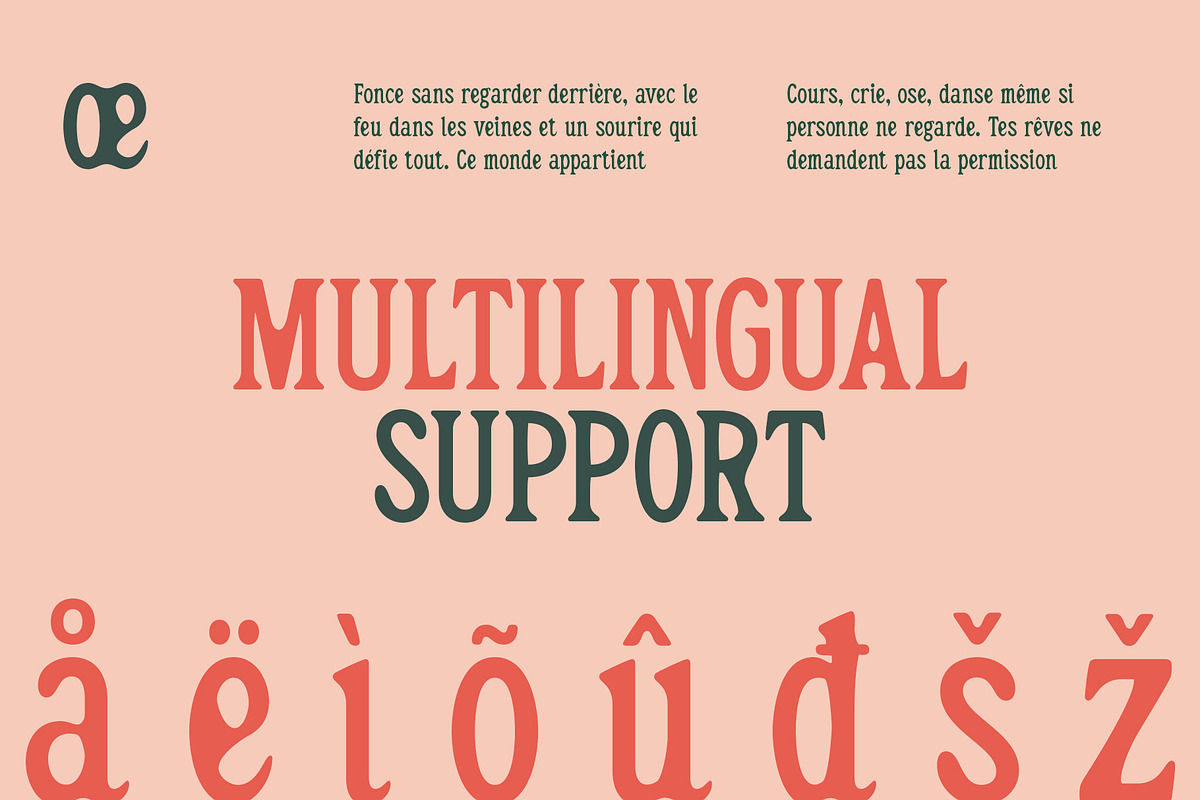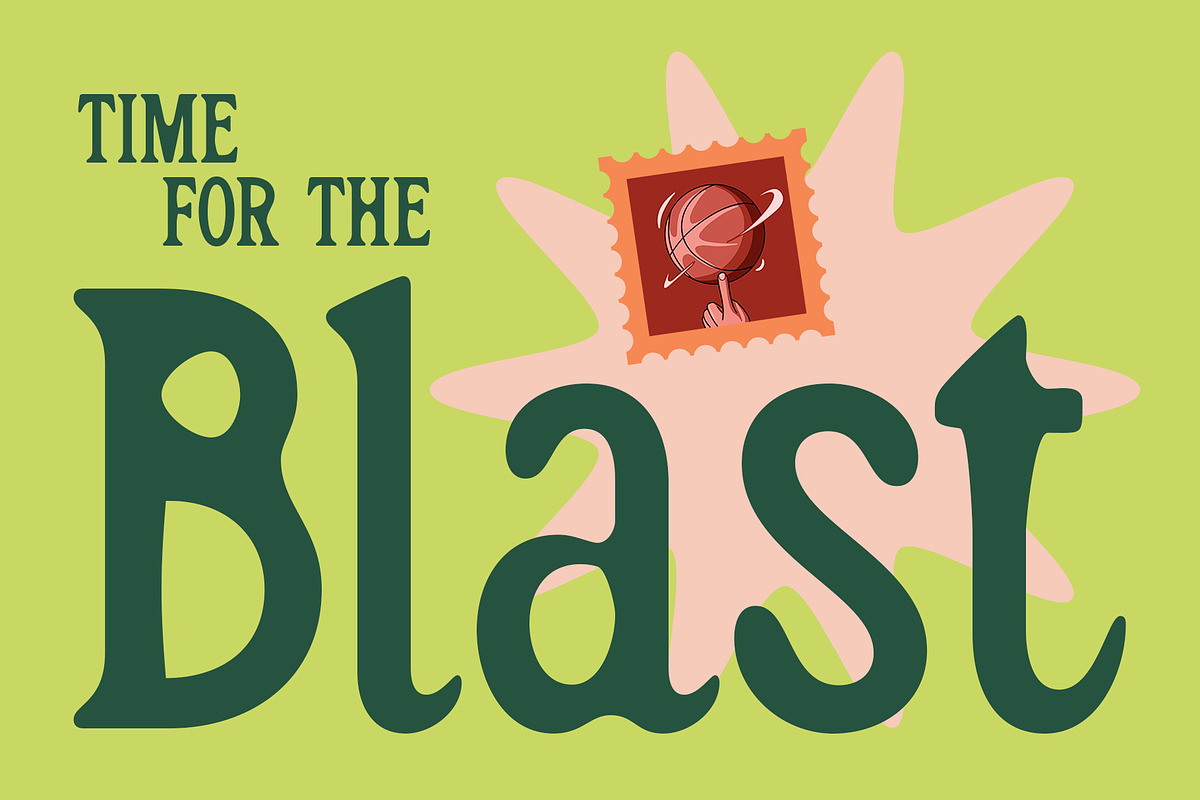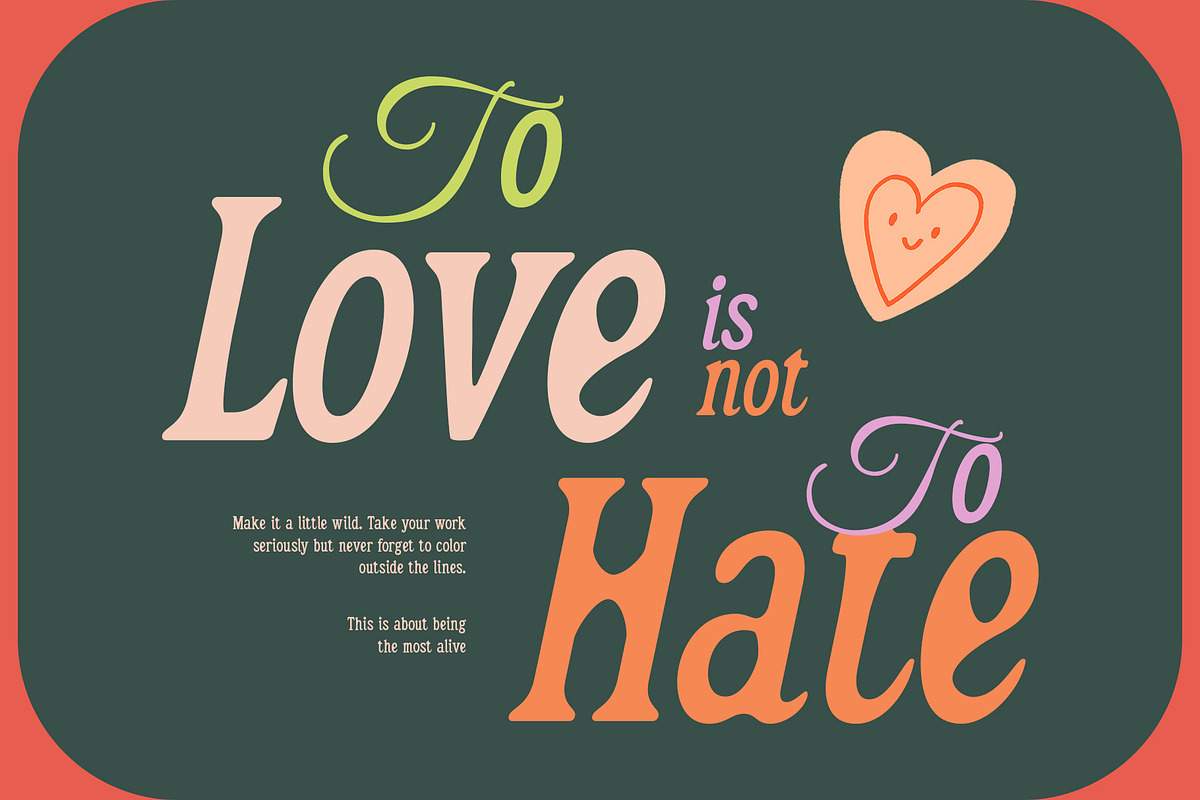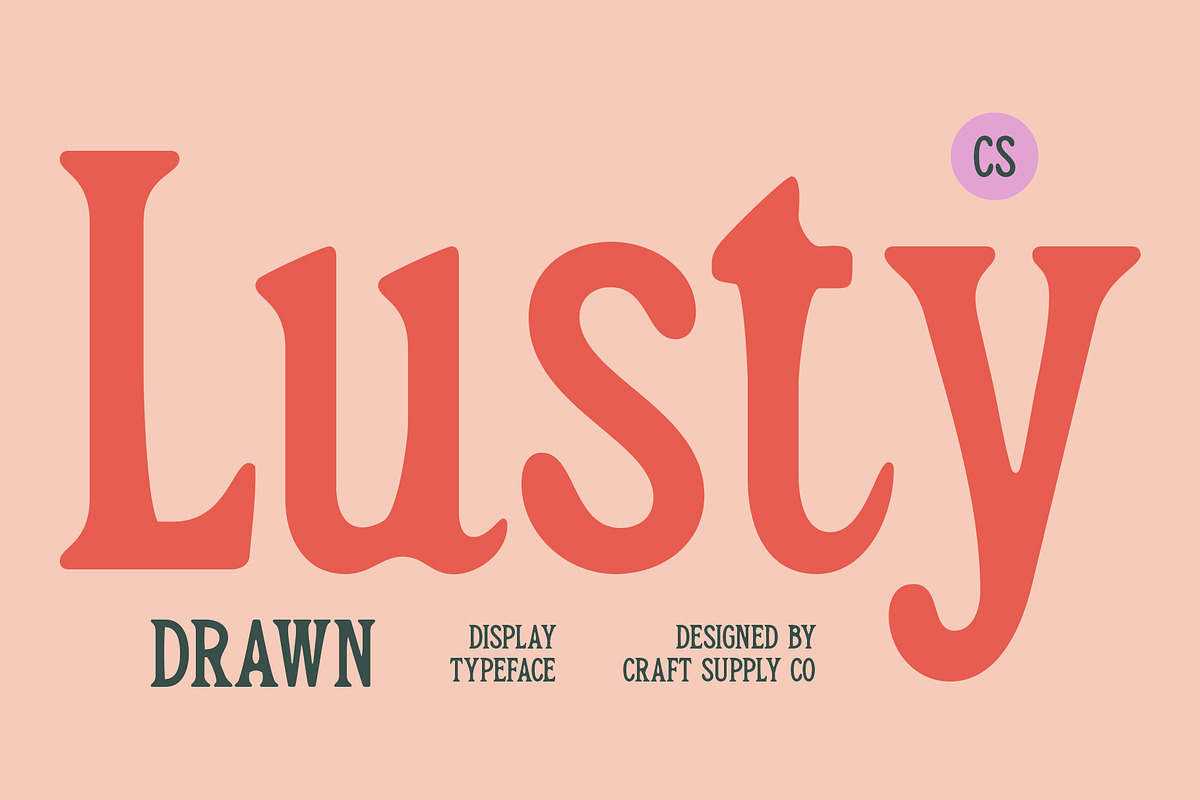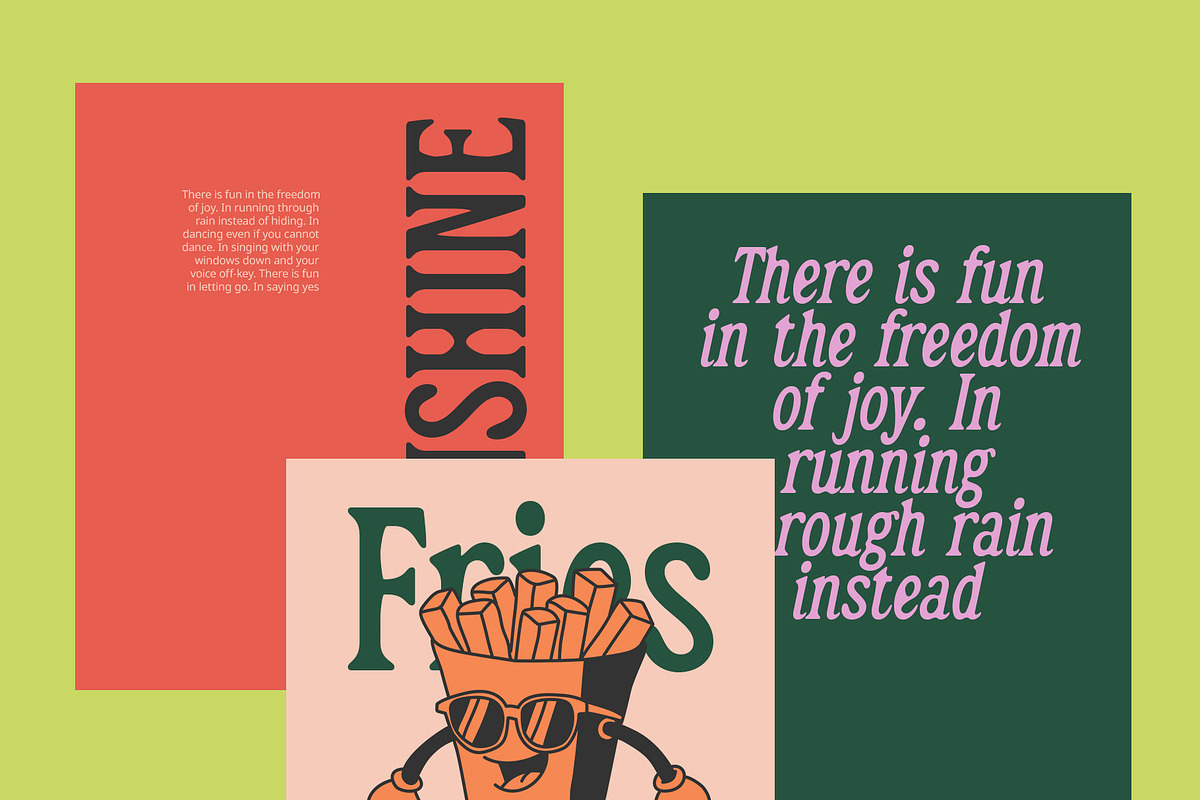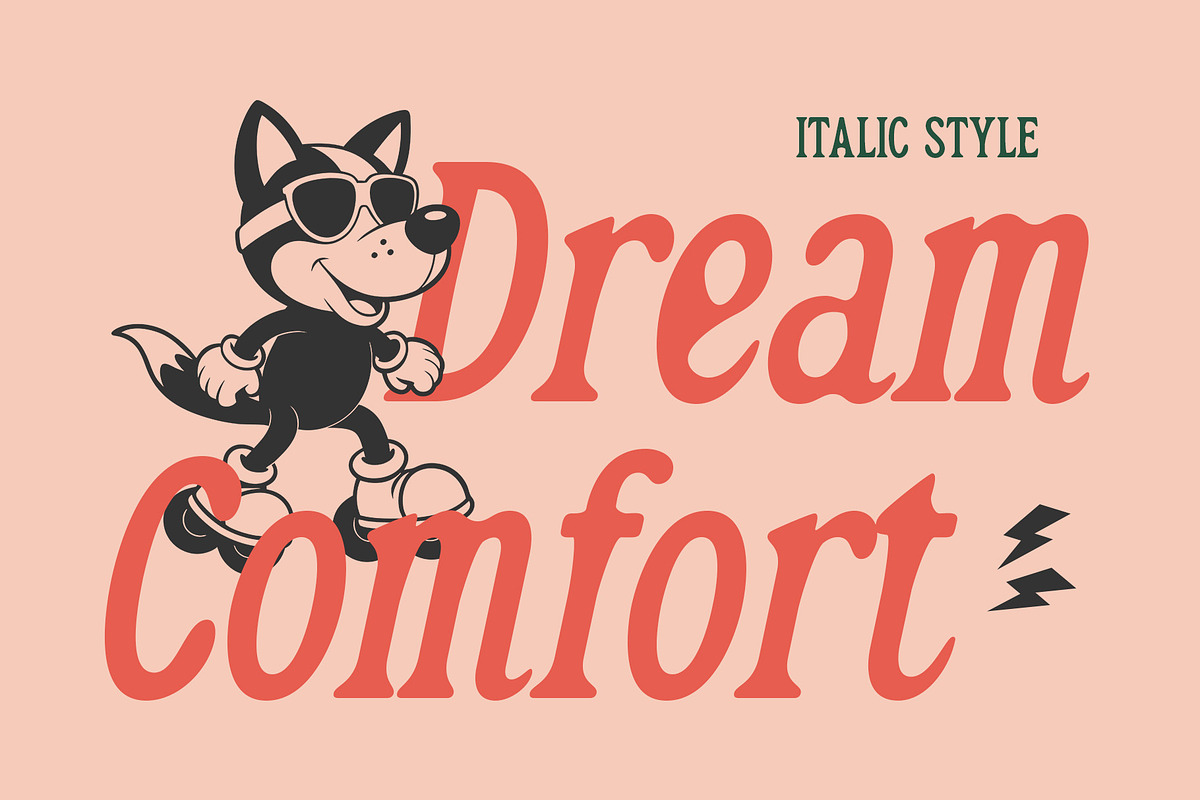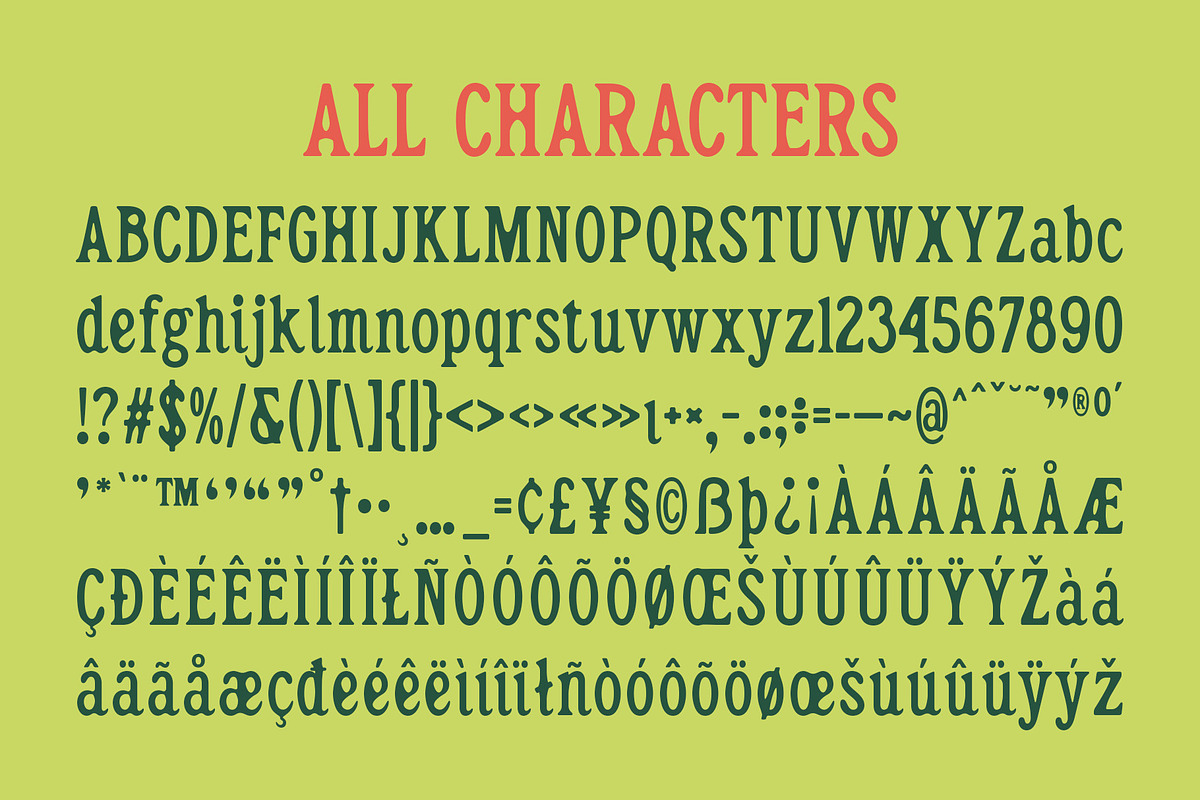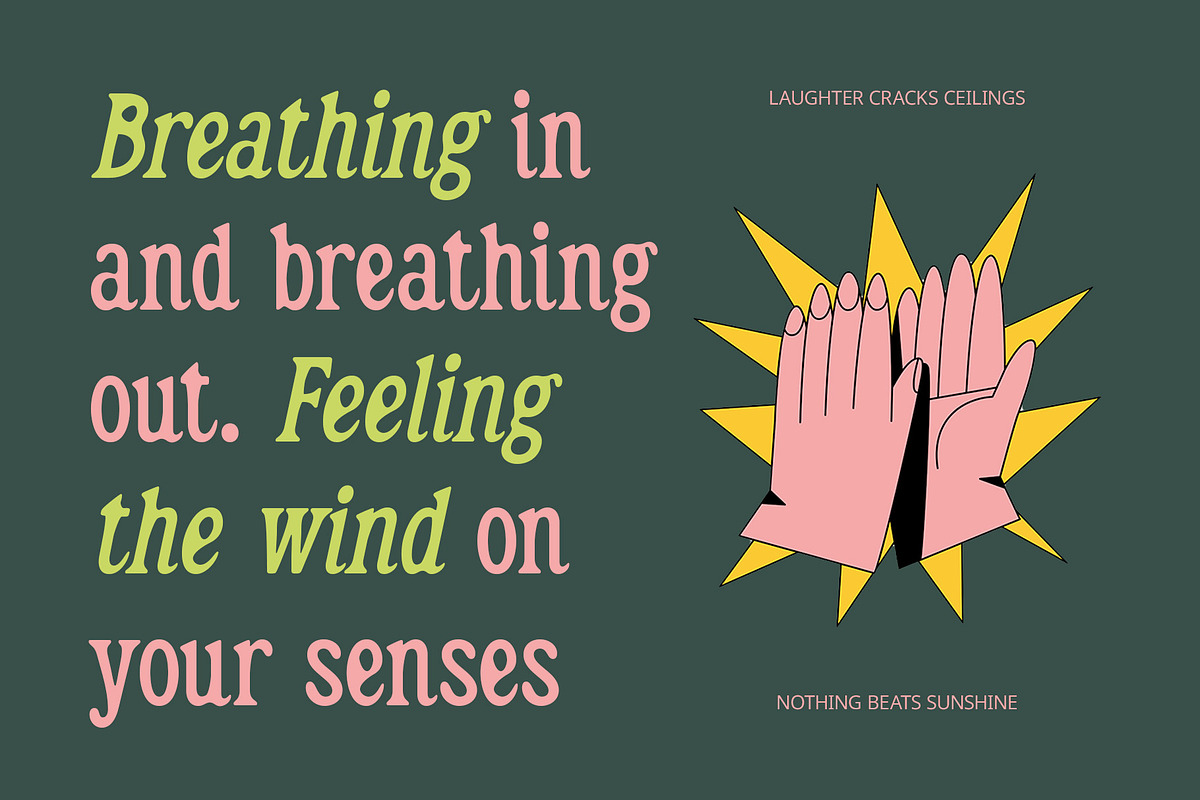
CS Lusty Drawn
CS Lusty Drawn – Soft Elegance with a Handcrafted Soul
Classic Display Serif with Rounded Terminals and Drawn Texture This is a classic display serif font that blends traditional serif elegance with gentle, rounded terminals. This design choice adds a soft and graceful tone, creating a refined yet approachable look.
Graceful Forms with Feminine Flair The rounded terminals soften the strong serif structure, delivering a charming and beauty-oriented personality. These curves enhance the font’s visual appeal, giving it a warm and inviting tone that feels perfect for feminine designs, luxury packaging, and editorial aesthetics focused on elegance and subtlety.
Drawn Effect for Artistic Texture What makes this feminine font truly special is its drawn effect, which mimics hand-drawn strokes and introduces slight imperfections that give the font an organic and personal texture. This artistic layer makes the type feel more authentic, handcrafted, and expressive, giving your design a sense of individuality and emotional depth.
Perfect for Beauty and Lifestyle Designs From beauty product packaging and editorial layouts to lifestyle branding and personal invitations, this aesthetic font delivers a refined yet creative presence. Its blend of classic form, visual softness, and hand-drawn flair makes it perfect for any design that aims to be gentle, elegant, and full of character.